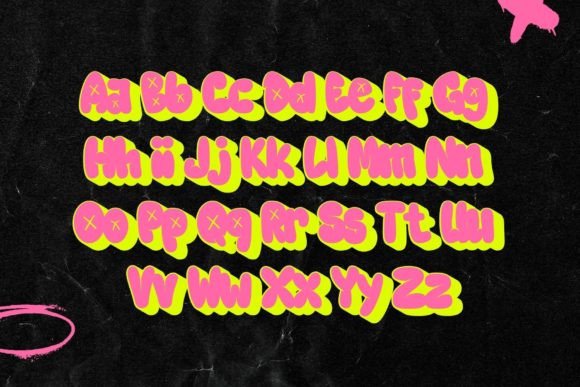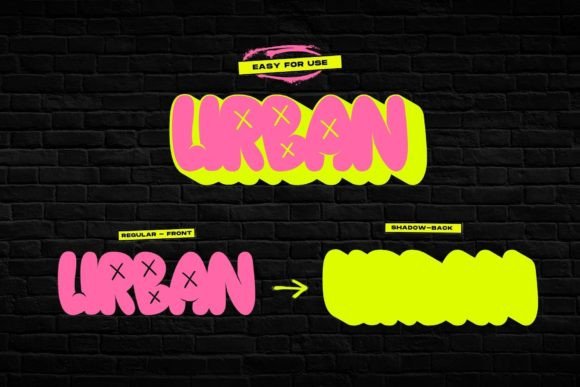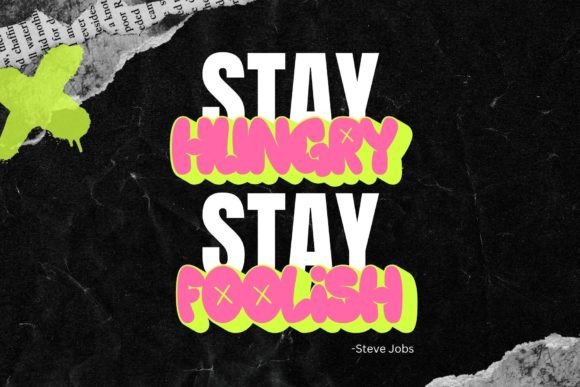
Unleash Your Creativity with Graffiti Bubble Font
Are you a designer, crafty enthusiast, or simply someone who loves to express themselves through art? Look no further than the Graffiti Bubble Font, a fun and urban-style display font that’s perfect for adding a touch of edginess to your designs. In this article, we’ll dive into the world of Graffiti Bubble Font and explore its endless possibilities for creative expression.
What is Graffiti Bubble Font?
Graffiti Bubble Font is a unique and eye-catching display font that’s inspired by the vibrant and dynamic world of graffiti art. This font is designed to bring a sense of urban grit and style to your designs, making it perfect for projects that require a bold and attention-grabbing aesthetic. With its playful and carefree vibe, Graffiti Bubble Font is sure to add a touch of personality to any design.
What Can I Use Graffiti Bubble Font For?
The possibilities are endless with Graffiti Bubble Font! This versatile font is suitable for a wide range of design projects, including:
- Logos: Create a bold and memorable logo for your brand or business with Graffiti Bubble Font.
- Advertising: Add a touch of urban flair to your ad campaigns with this eye-catching font.
- Apparel: Design stylish and attention-grabbing t-shirts, hoodies, and other clothing items with Graffiti Bubble Font.
- Jerseys and Sportswear: Give your sports team or athletic brand a bold and edgy look with this font.
- Skateboard Designs: Add a touch of street style to your skateboard designs with Graffiti Bubble Font.
Why Choose Graffiti Bubble Font?
So why choose Graffiti Bubble Font over other display fonts? Here are just a few reasons why this font stands out:
- Unique Style: Graffiti Bubble Font has a one-of-a-kind style that’s sure to make your designs stand out from the crowd.
- Easily Readable: Despite its bold and playful style, Graffiti Bubble Font is surprisingly easy to read, making it perfect for designs that require a clear message.
- Highly Versatile: This font can be used for a wide range of design projects, from logos and advertising to apparel and skateboard designs.
- Fun and Creative: Graffiti Bubble Font is the perfect choice for designers who want to add a touch of fun and creativity to their designs.
Tips for Using Graffiti Bubble Font
Here are a few tips for getting the most out of Graffiti Bubble Font:
- Experiment with Colors: Graffiti Bubble Font looks great in bold and bright colors, so don’t be afraid to experiment with different color schemes.
- Play with Texture: Add some texture to your designs with Graffiti Bubble Font by incorporating different patterns and backgrounds.
- Mix and Match: Combine Graffiti Bubble Font with other fonts and design elements to create a unique and eye-catching look.
| Font Name | Graffiti Bubble Font |
| Author | Sigit Dwipa |
Graffiti Bubble Font is a fun and urban-style display font that’s perfect for designers, crafty enthusiasts, and anyone who loves to express themselves through art. With its bold and playful style, this font is sure to add a touch of personality to any design. Whether you’re creating a logo, advertising campaign, or apparel design, Graffiti Bubble Font is the perfect choice for adding a touch of edginess and creativity to your projects. So why wait? Download Graffiti Bubble Font today and take your designs to the next level!